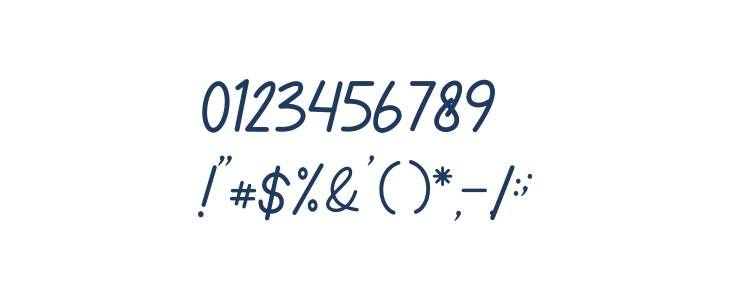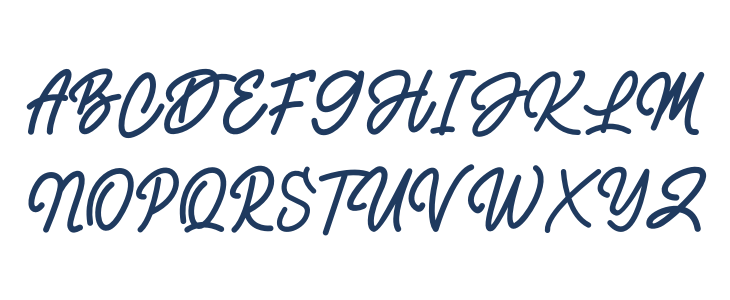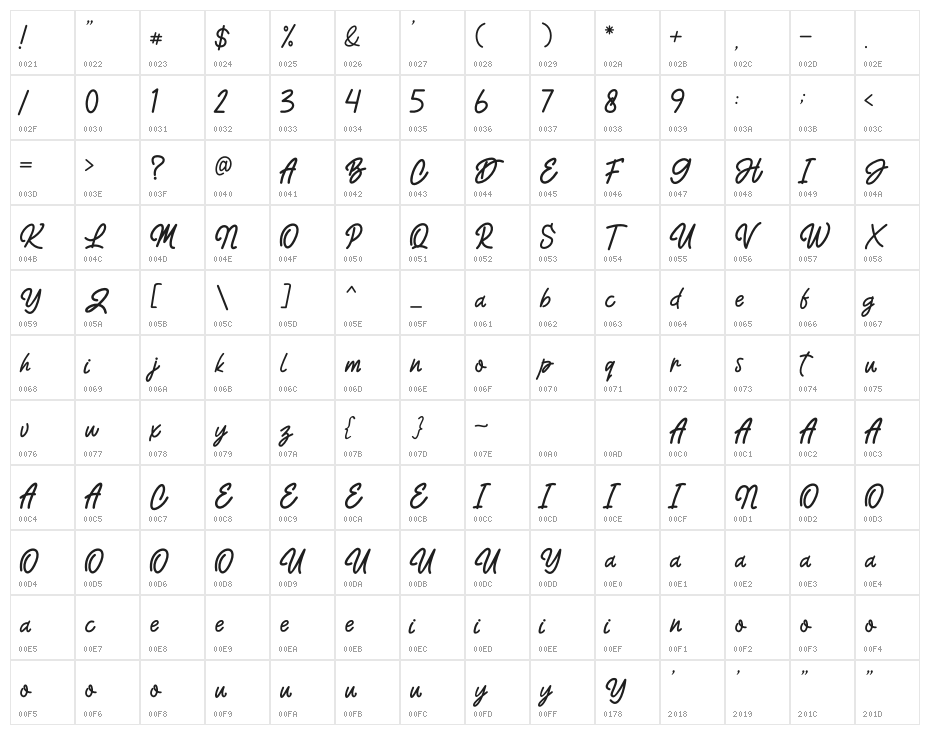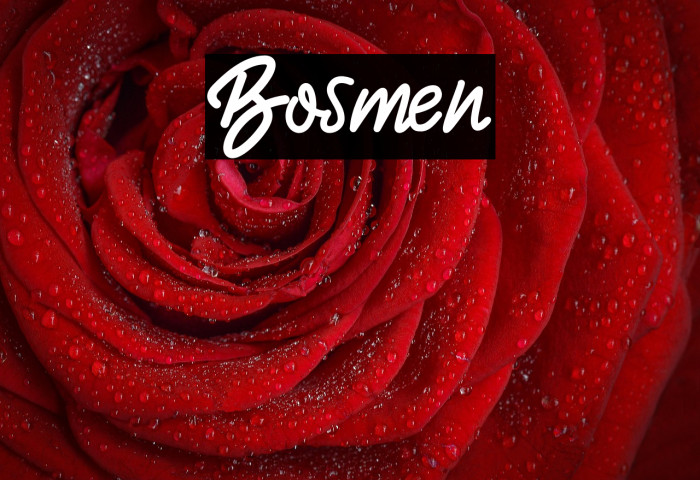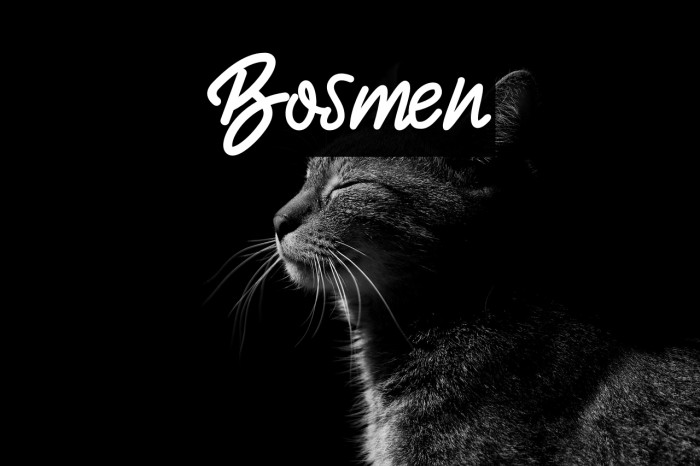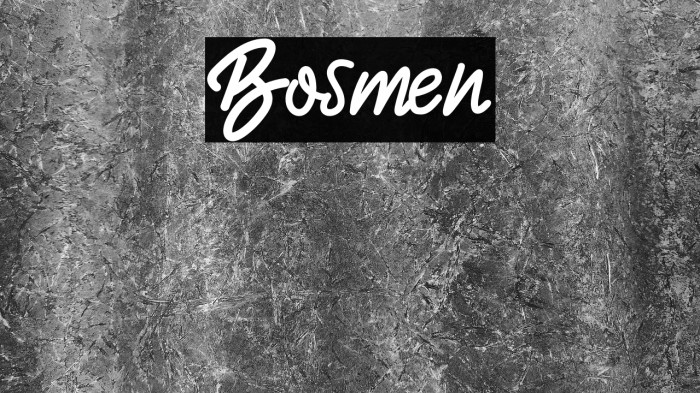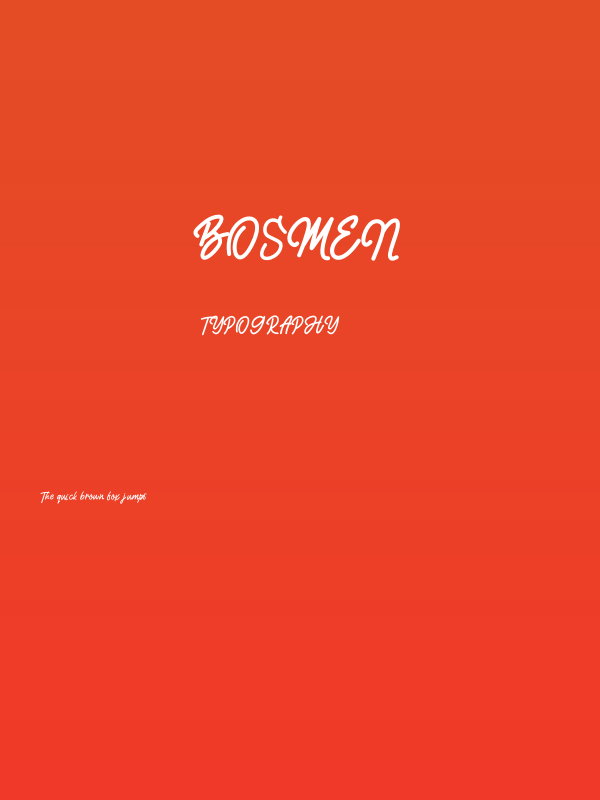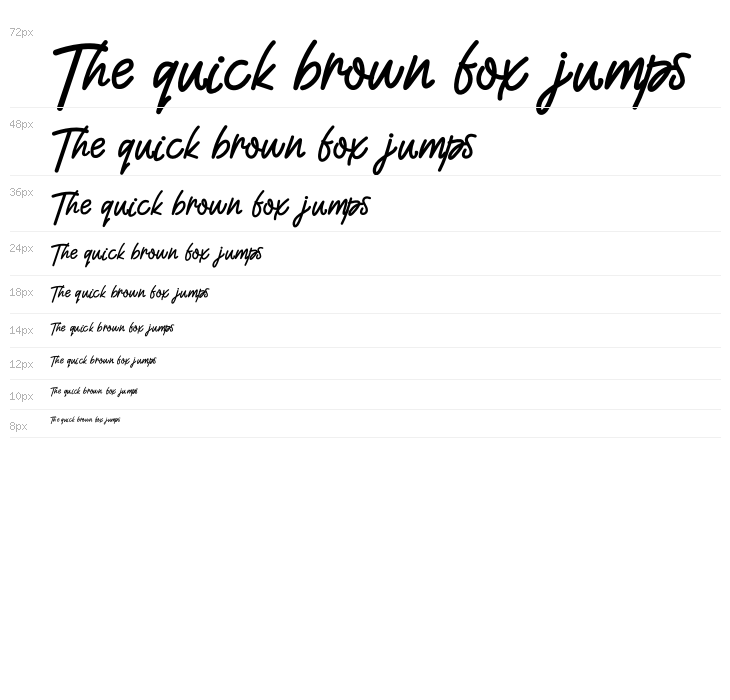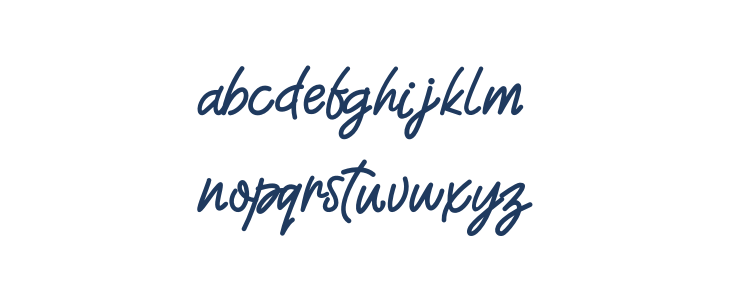
Bosmen Font
Bosmen Description
A casual, handwritten script font with smooth, flowing strokes and a natural, informal appearance. The characters are slightly slanted, mimicking cursive handwriting, and feature moderate contrast in stroke thickness.
| Overall Style | Casual, Decorative, Handwritten |
| Use Case | Logos, Headlines, Invitations, Social media posts |
| Proposed Projects | Greeting cards, invitations, personal branding, quotes, social media graphics. |